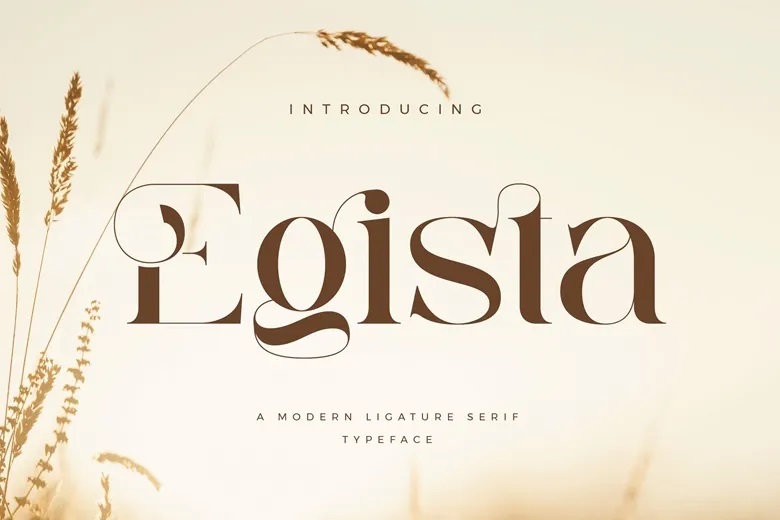
Egista Font
Egista is an elegant serif font with a delicate, classy style. Its balanced weight makes it versatile, and it was created to bring out the beauty in your projects.
Egista Serif Font